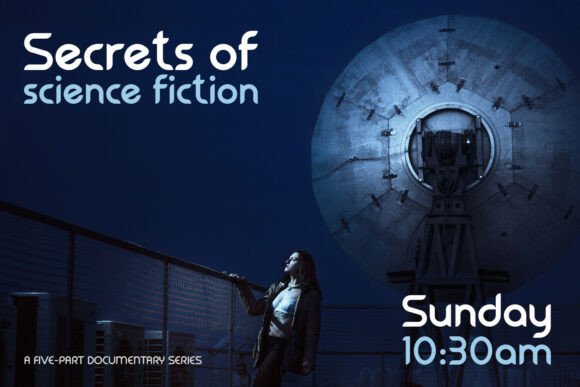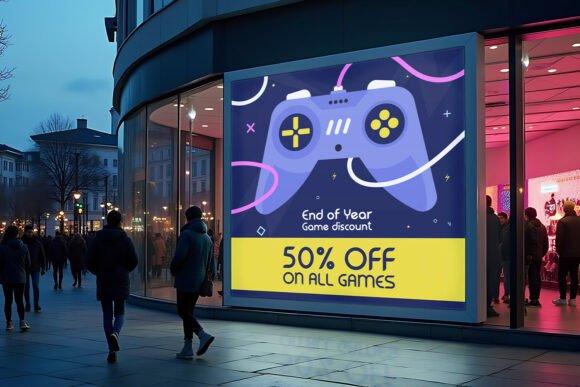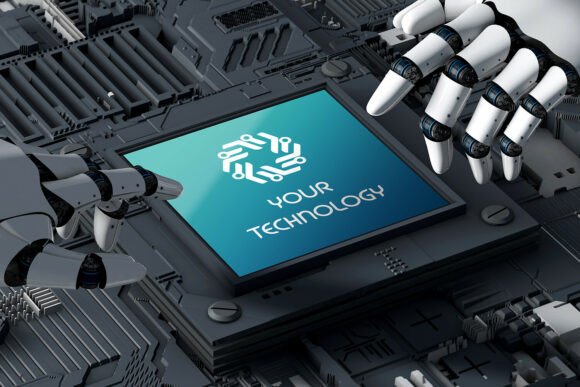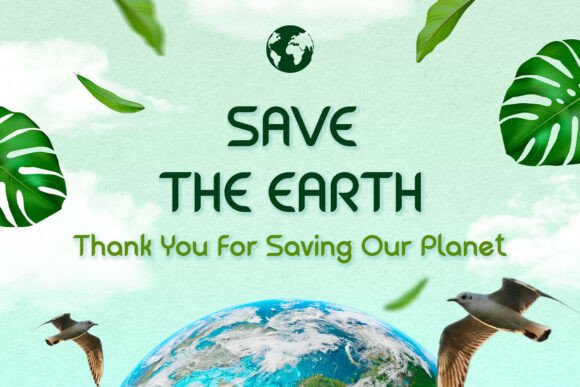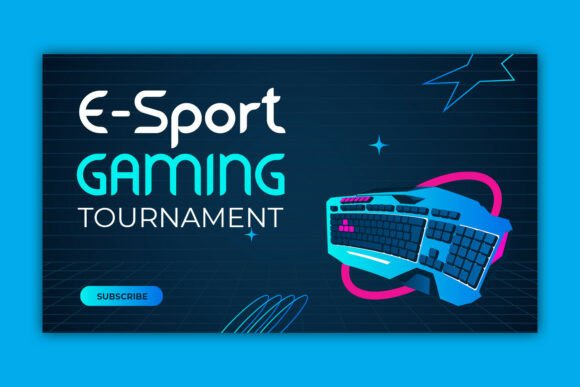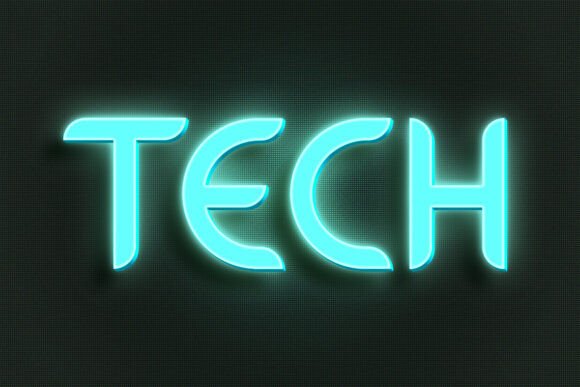
Introduction to Novaris Font
Introducing Novaris, a premium and elegantly crafted geometric sans-serif font.
With its perfect balance of modern, futuristic curves and sharp, clean cuts, Novaris is highly versatile It is the ultimate typography choice for cutting-edge technology, sci-fi projects, and gaming interfaces.